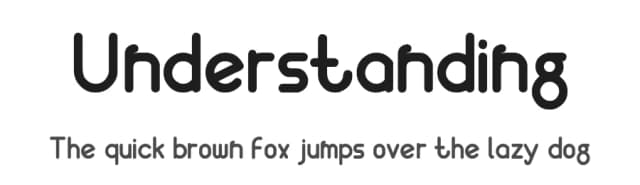
About Practicum Font
Practicum is a sans-serif font designed by Serge Lapin. It includes 183 glyphs, a regular weight, TTF (TrueType) format, and 114 languages. Practicum is free to download; check the license details on this page before commercial use. Sans-serif fonts like Practicum work best for clean body text, user interfaces, branding, and modern layouts.
Practicum Font is a versatile sans-serif font that works for both headings and body text. Pair it with a contrasting serif or slab serif font to add visual interest and a clear distinction between titles and body copy.
Practicum Font
by Serge Lapin
Practicum Font is a sans serif typeface by Serge Lapin, ideal for logos, invitations, branding, and creative projects.